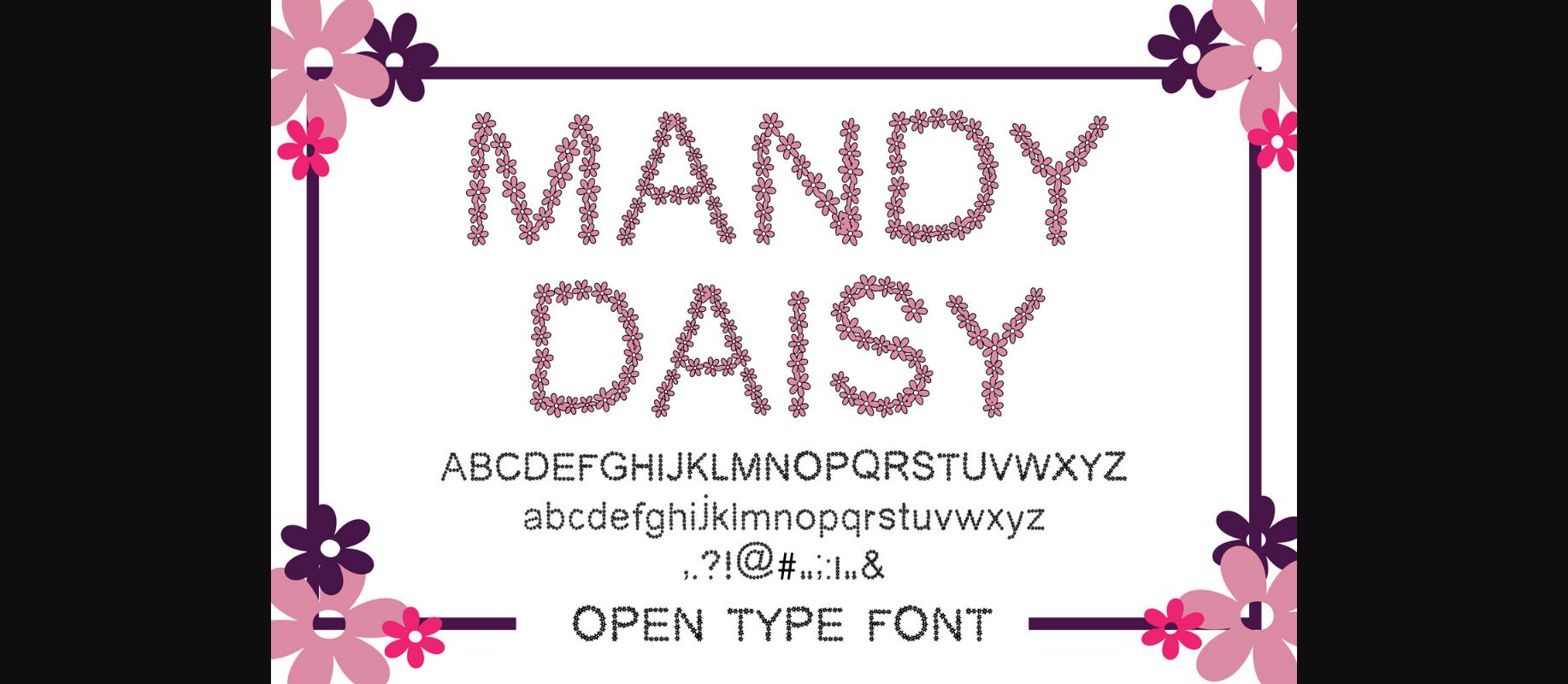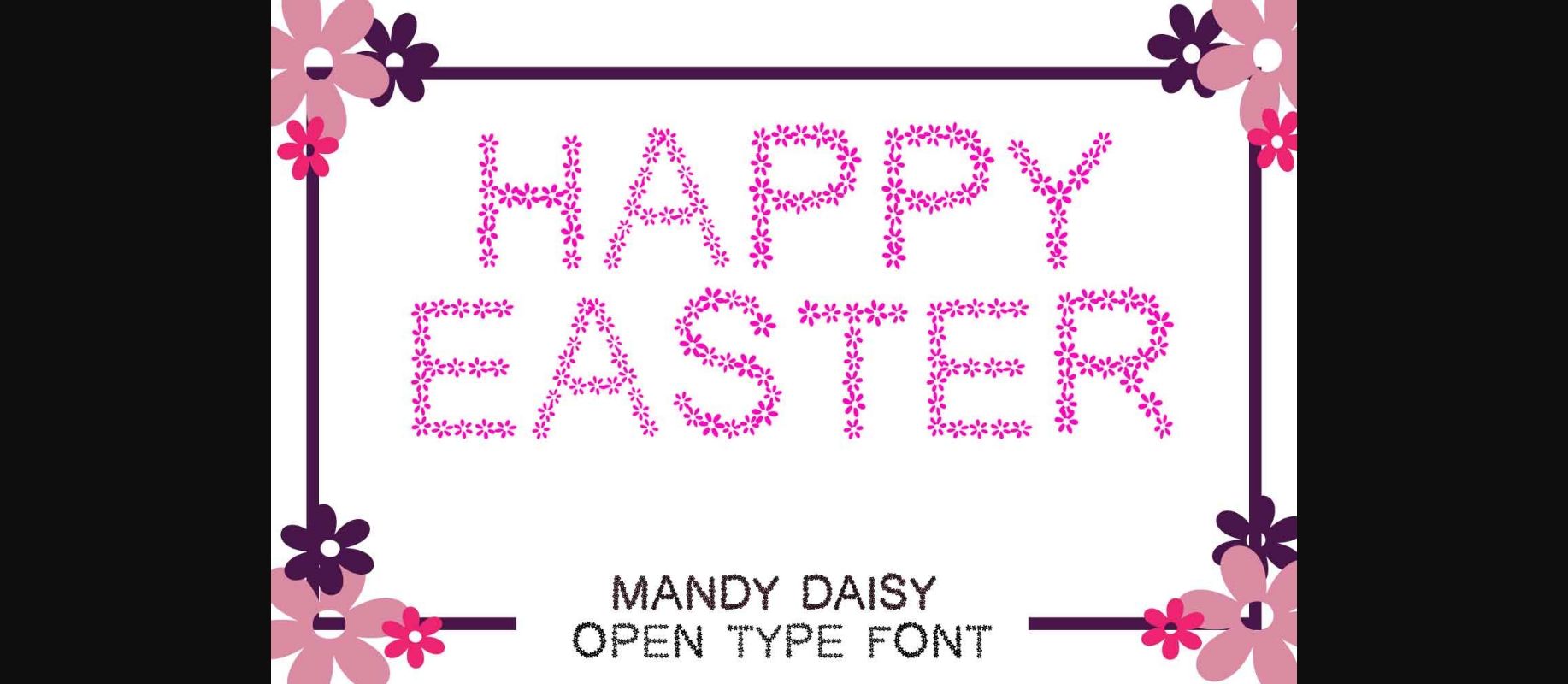
About Mandy Daisy Font
Mandy Daisy is a delicate and stylish decorative font. Add this romantic looking font to each of your love letters, wedding invitations or favorite design ideas, and you will be astounded by the outcome.